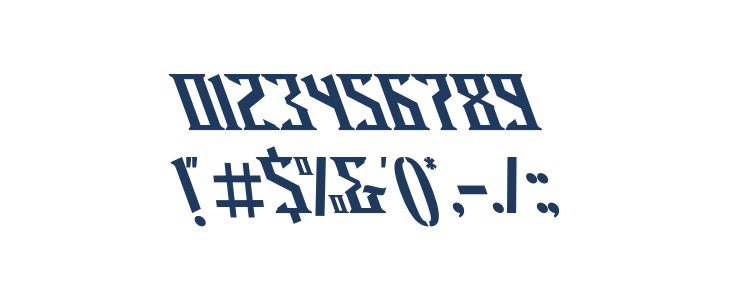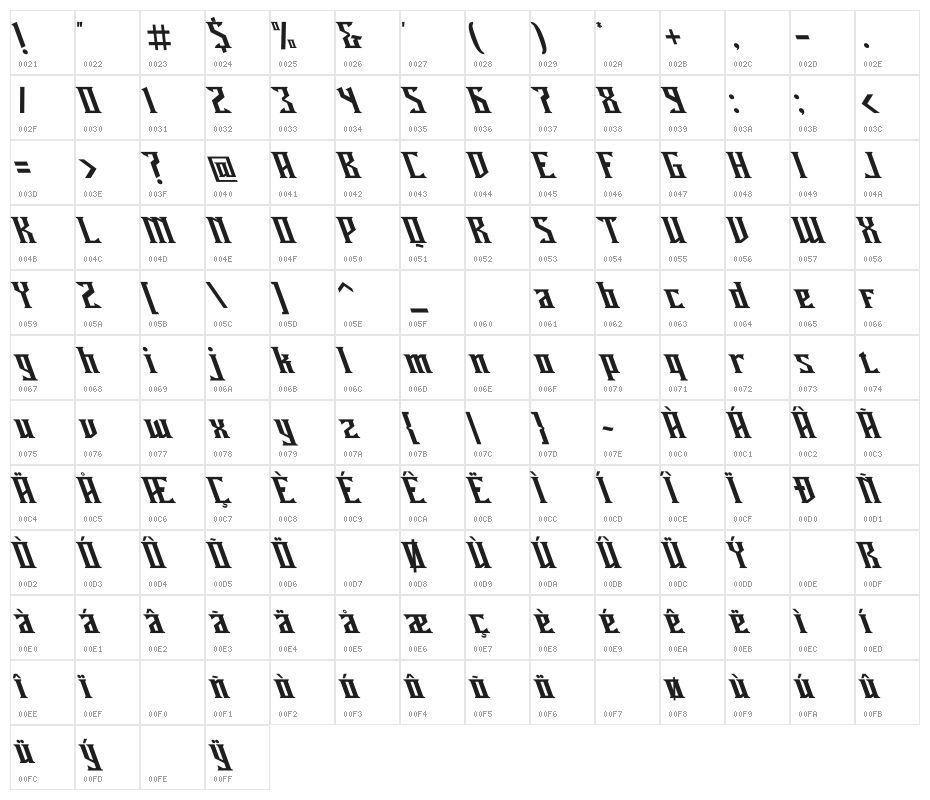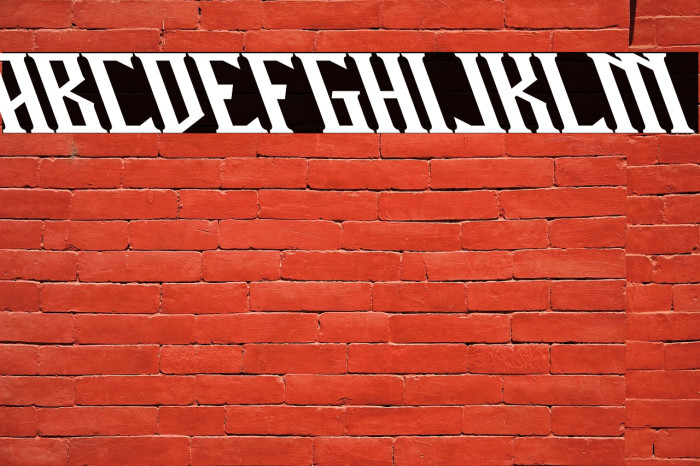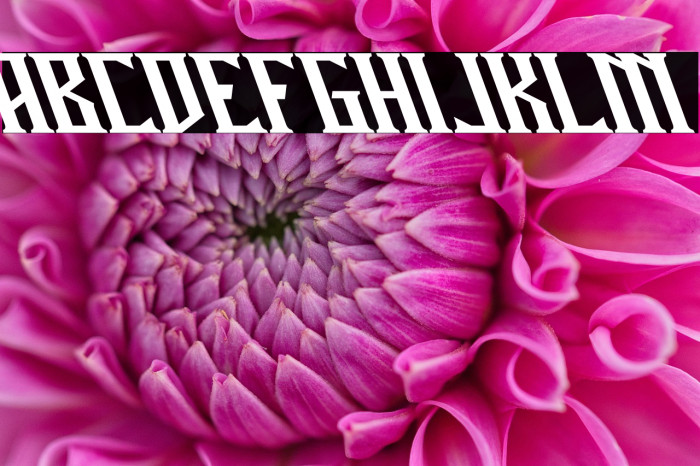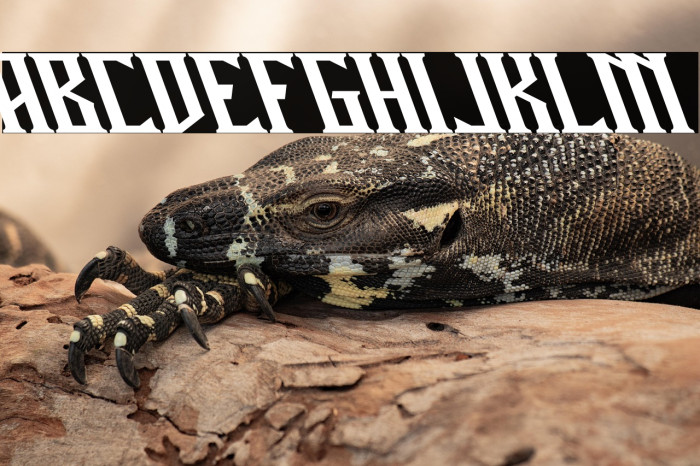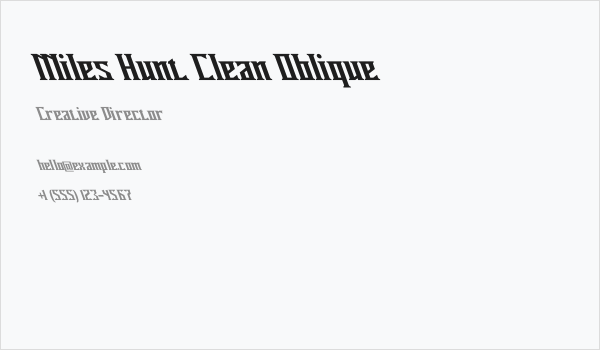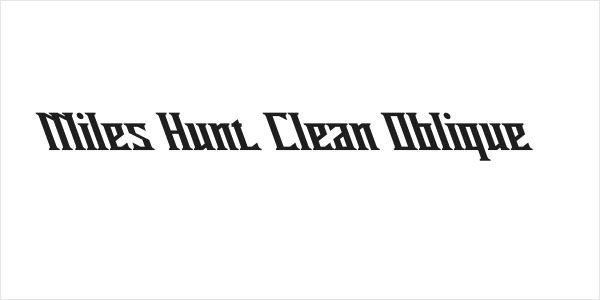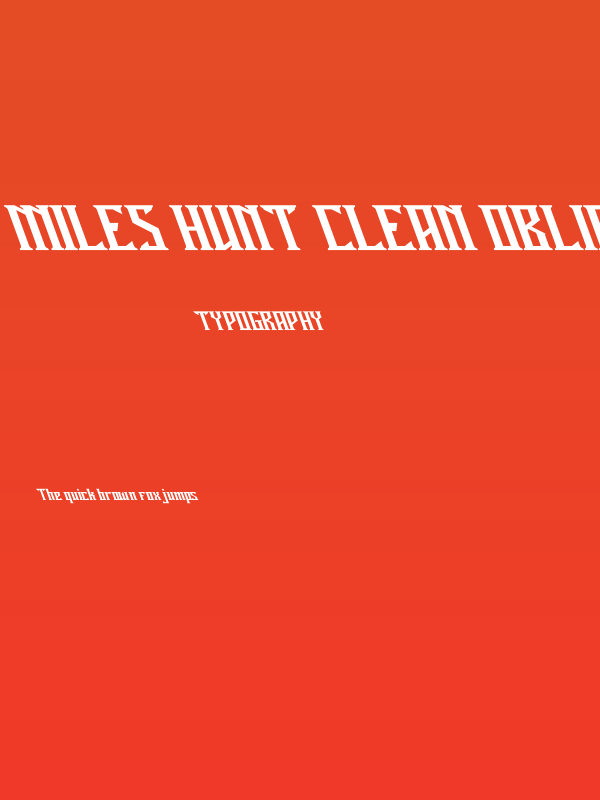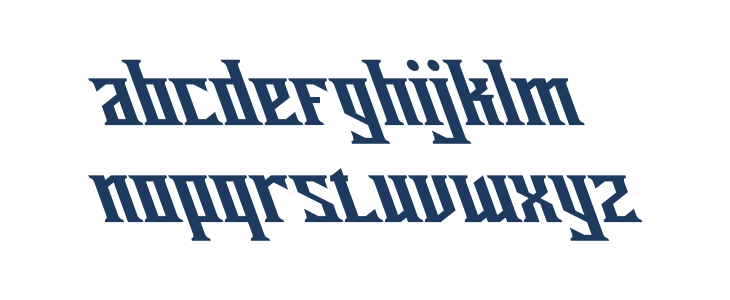
Miles Hunt Clean Oblique Font
Miles Hunt Clean Oblique Description
This font features a bold and dynamic style with a strong oblique slant, giving it a sense of motion and energy. The characters are sharply angular, with pointed serifs and a distinct geometric influence. The uppercase and lowercase letters maintain a consistent style, with the lowercase being slightly more compact. Numbers and special characters follow the same angular and bold design, ensuring uniformity across all glyphs. The overall appearance is striking and modern, making it suitable for attention-grabbing designs.
| Proposed Projects | Ideal for posters, logos, branding materials, and any project requiring a bold, modern aesthetic. |